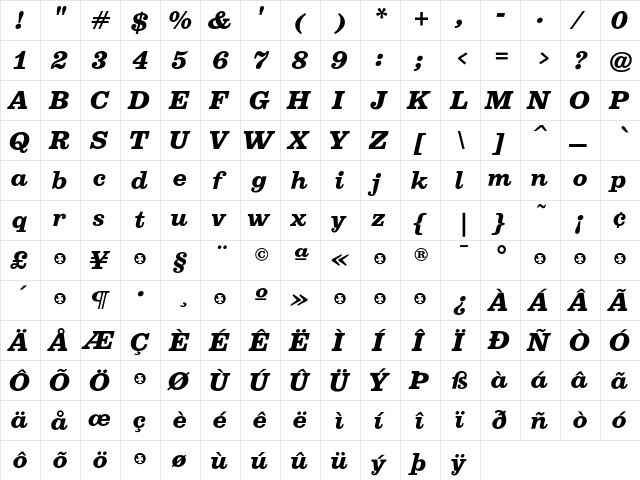
BelizioBoldItalic Regular Font Preview
Design Context for BelizioBoldItalic Typeface
BelizioBoldItalic takes a measured approach to typography — its balanced proportions and neutral character make it a reliable workhorse for both digital and print work. The slanted form adds forward momentum and visual energy. The heavy weight commands attention and anchors typographic hierarchies.
Pro Tip: Try BelizioBoldItalic for annotation and caption copy alongside an upright companion — the contrast in angle creates a dynamic but ordered typographic system.